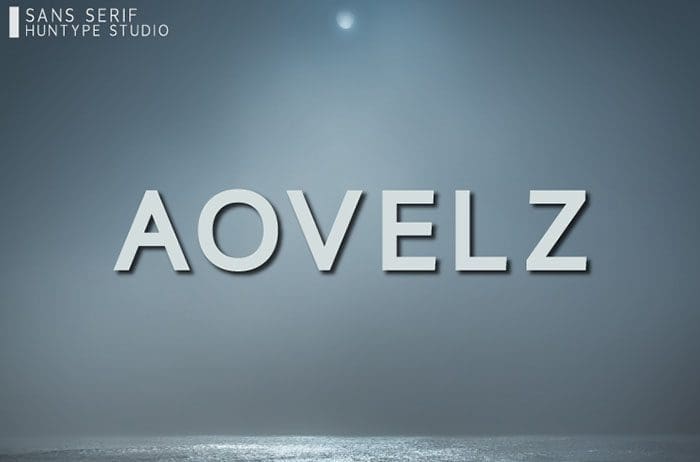
Aovelz Sans Serif Font
Aovelz is a fancy and contemporary sans serif font. It will complement any design need perfectly with its perfectly balanced mix of smooth and sharp. Thanks to Mas Anis for sharing this awesome font! Take a look on this portfolio for more of his stunning fonts.